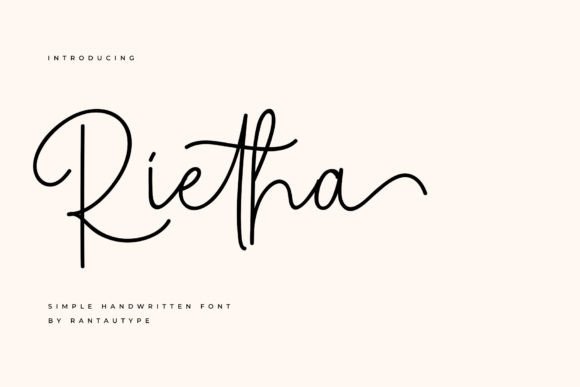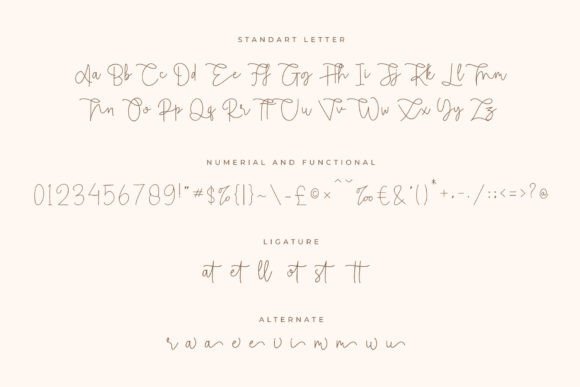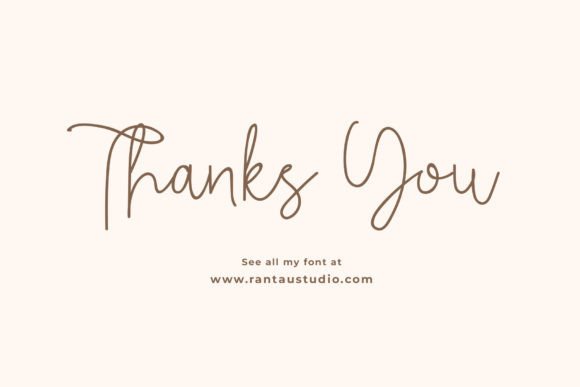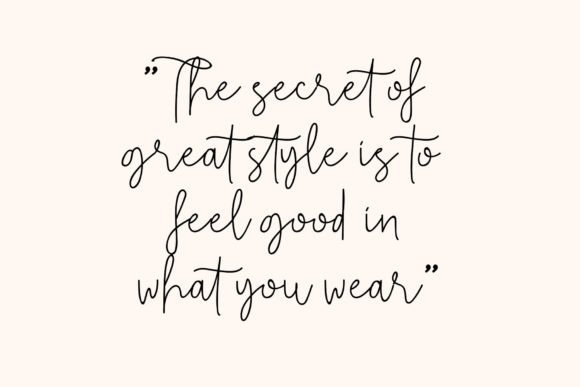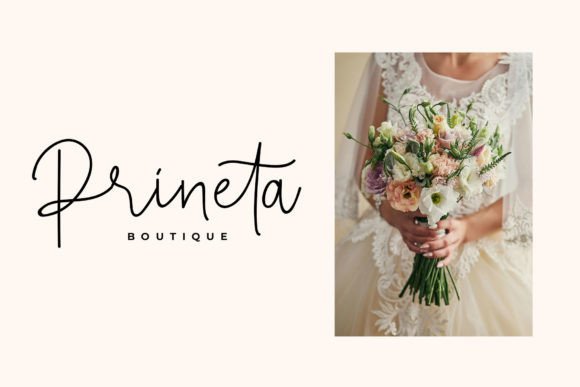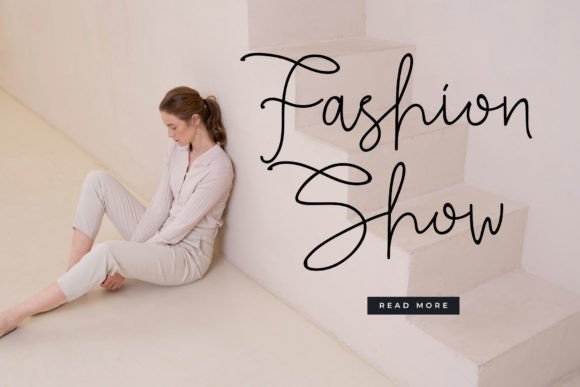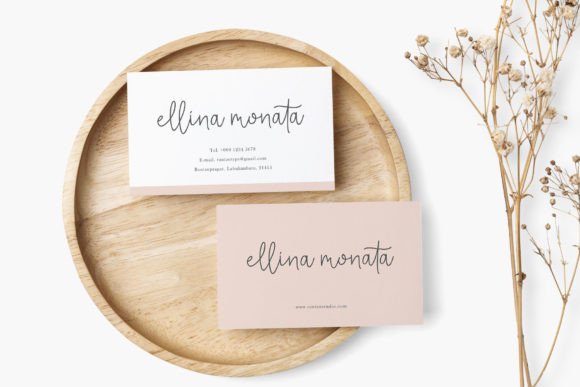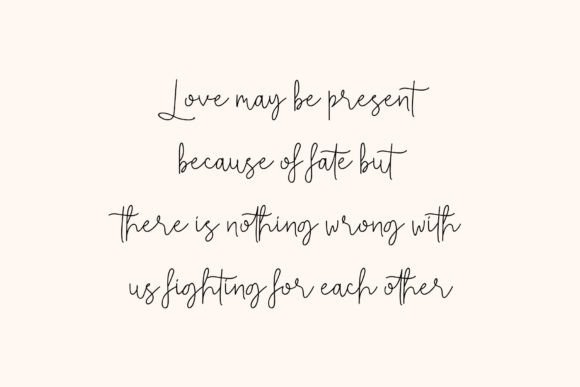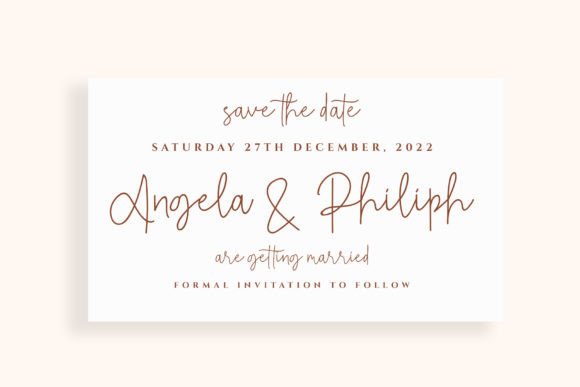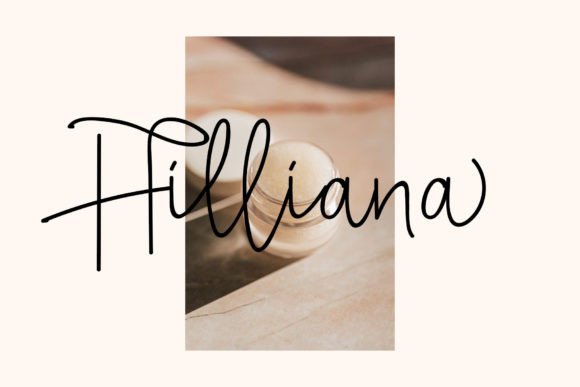
HomeScript FontsRietha Font Script Fonts Rietha Font FacebookXPinterestWhatsApp Rietha Font Poster 2 Rietha Font Poster 3 Rietha Font Poster 4 Rietha Font Poster 5 Rietha Font Poster 6 Rietha Font Poster 7 Rietha Font Poster 8 Rietha Font Poster 9 Rietha Font Poster 10 Rietha Font Poster 11 About Rietha Font Rietha is a sweet and charming script font with a bold vibe. Get inspired by its authentic look! DOWNLOAD ON CREATIVE FABRICAThis font is sold and delivered by Creative Fabrica. Font Canyon may earn a commission if you buy through this link. People also explored Astonish Font Lanttang Best Font Keep off Font Daily Kitten Font Sweet Master Font Rue Font Xmas Tree Font Boba Lover Font Shalfolk Font 348 0 TagsRietha Font Previous articleWild Children FontNext articleCothelina Font LEAVE A REPLY Cancel reply Comment: Please enter your comment! Name:* Please enter your name here Email:* You have entered an incorrect email address! Please enter your email address here Website: Save my name, email, and website in this browser for the next time I comment. Personal Use Free Rafika Personal Use Free Read more about this font Lumber Personal Use Free Read more about this font Pan Pizza Personal Use Free Read more about this font Bonhomie Personal Use Free Read more about this font BLOG Free Fonts Risk: Why Free Fonts Can Be Dangerous for Designers Free Fonts Risk: Why Free Fonts Can Be Dangerous for Designers Using free fonts is a common practice in web and graphic design. However, the... Modern Sans-Serif Fonts That Brands Love in 2025 5 Fonts That Will Dominate Design Trends in 2026 Using Fonts in Digital Marketing: Tips to Strengthen Your Brand Identity